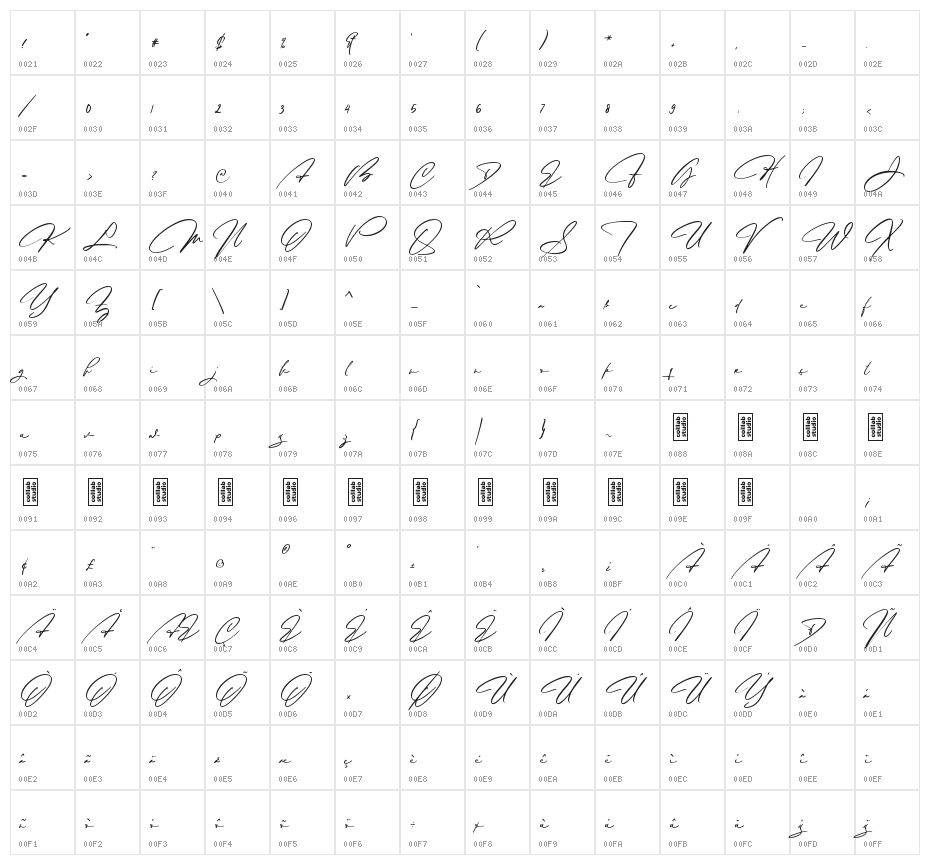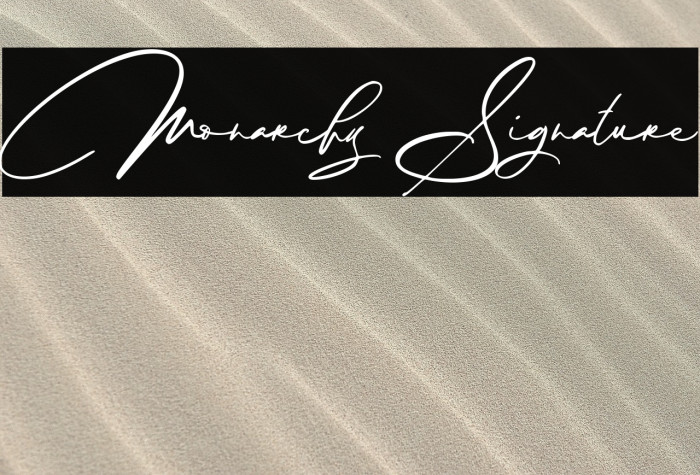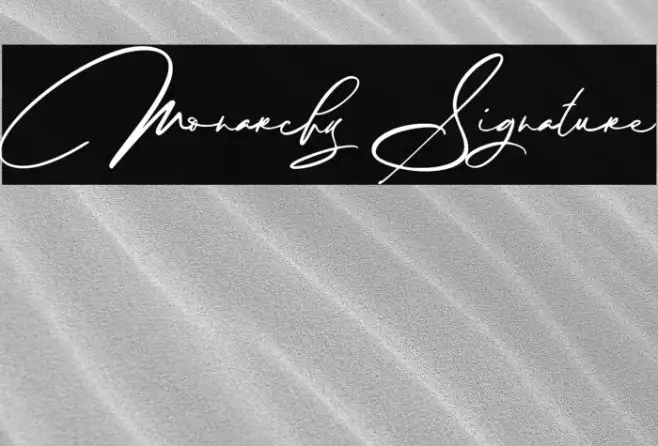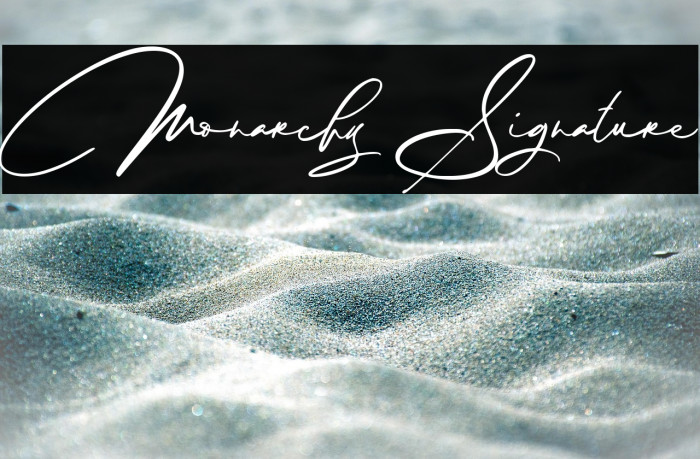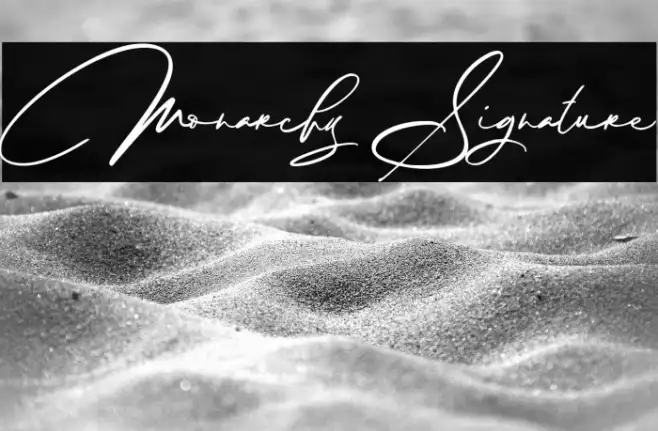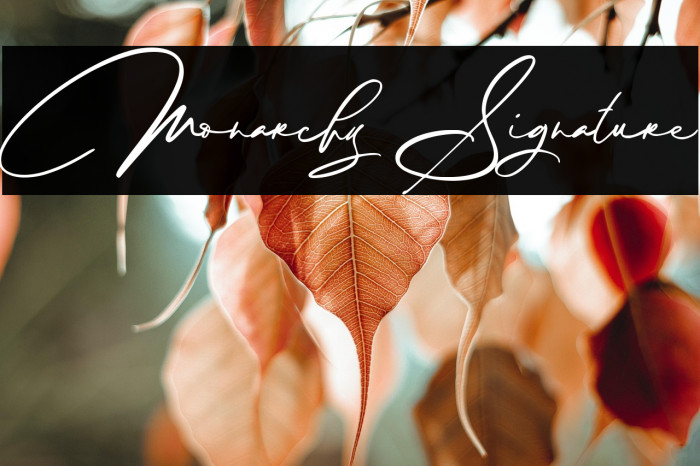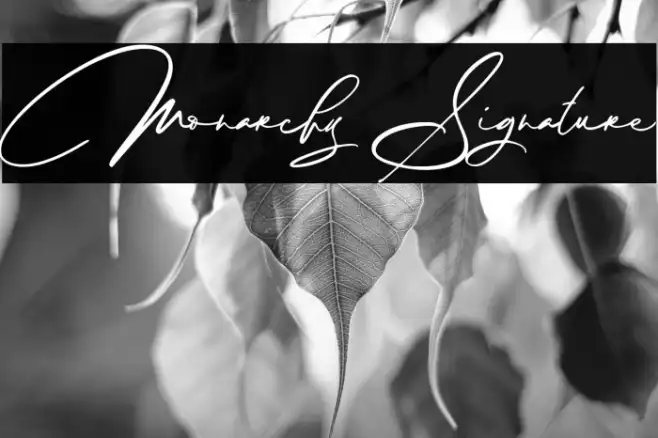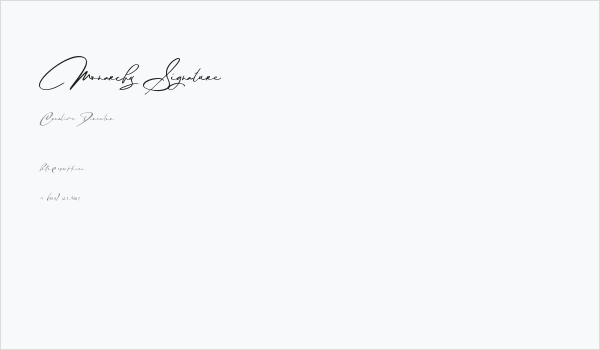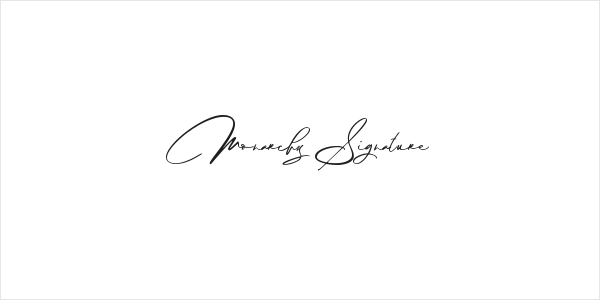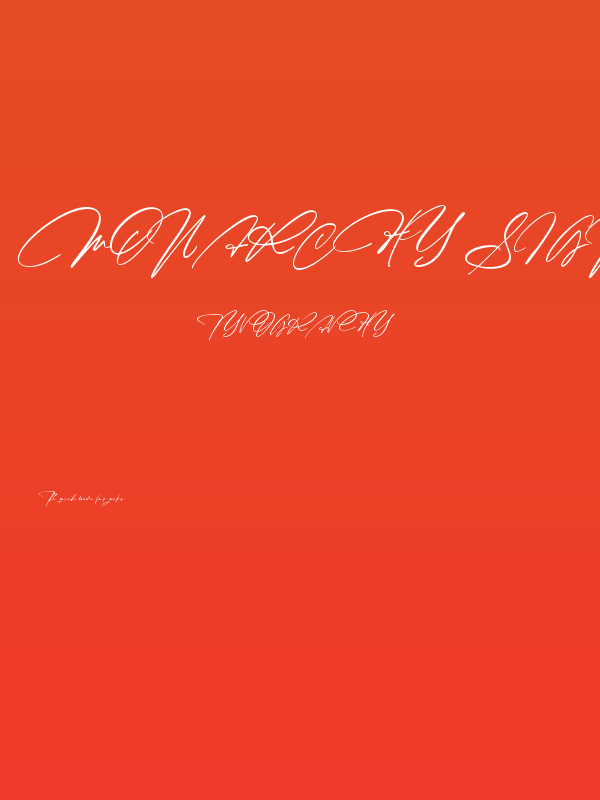
Monarchy Signature Font
Monarchy Signature Description
This font exudes elegance and sophistication with its fluid, cursive script style. The letters are intricately designed, featuring graceful loops and swirls that mimic the look of a handwritten signature. Each character flows seamlessly into the next, creating a sense of continuity and movement. The uppercase letters are particularly ornate, with exaggerated flourishes that add a touch of drama. The lowercase letters maintain the same fluidity but are more restrained in their embellishments. The numerals and special characters are consistent with the overall style, ensuring a cohesive look across all text. This font is perfect for projects that require a personal, luxurious touch.
Overall StyleElegant
Use CaseLogos, Invitations, Branding
Proposed ProjectsIdeal for wedding invitations, luxury branding, personal stationery, and high-end product packaging.